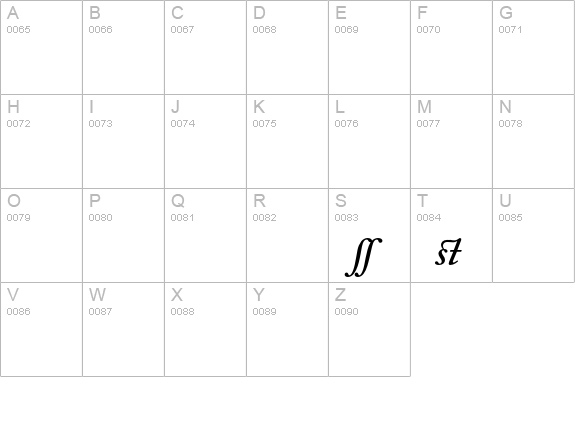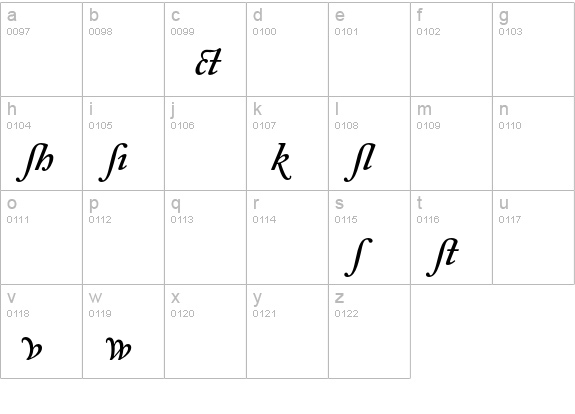
Adobe Caslon Semibold Italic Alternate Font Details
Adobe Caslon Semibold Italic Alternate is a sub-bold, structured, italic variant in the Adobe typeface family \xE2\x80\x94 well suited to sub-headlines and emphasised passages.
Adobe Caslon Semibold Italic Alternate is a timeless and elegant font that exudes sophistication and style. Its bold and slanted characters create a strong visual impact while maintaining a sense of refinement and grace. Perfect for adding a touch of flair to your projects, this versatile typeface is ideal for headings, titles, and other prominent text elements. What sets Adobe Caslon Semibold Italic Alternate apart is its unique alternate characters that add a distinctive flair to any design. These alternates provide additional creative possibilities and allow you to customize your typography with a touch of individuality. The best part is that Adobe Caslon Semibold Italic Alternate is available for free download at FontsMarket.com. So, whether you're a seasoned designer looking to expand your font collection or a novice seeking a high-quality typeface for your projects, this font is a must-have addition to your toolkit. Download it today and elevate your designs with the timeless beauty of Adobe Caslon Semibold Italic Alternate.